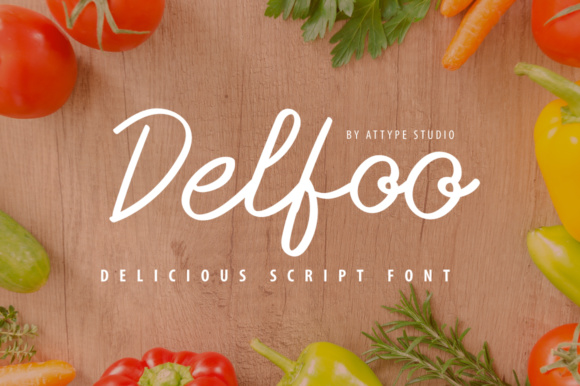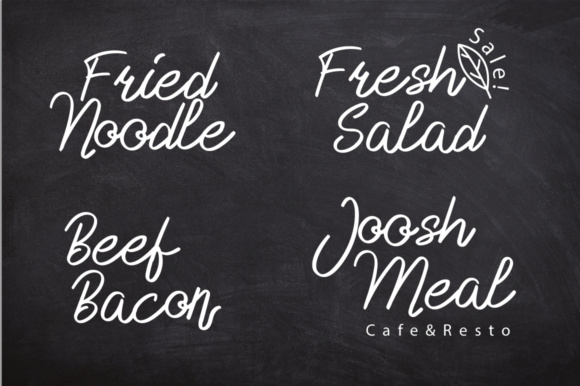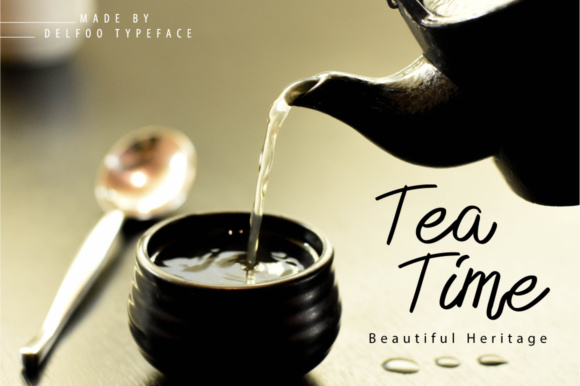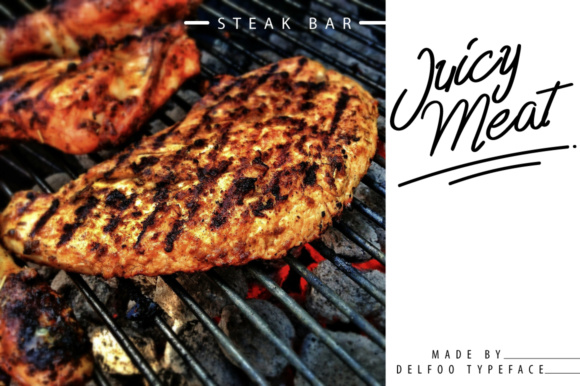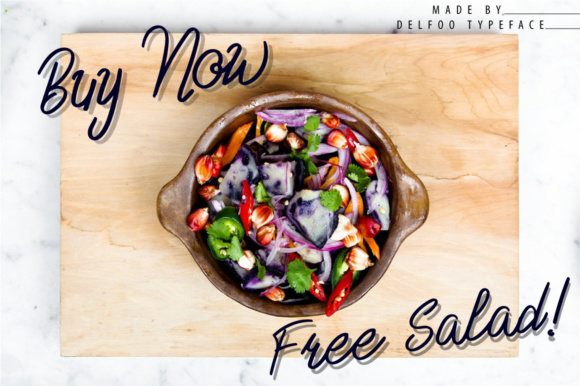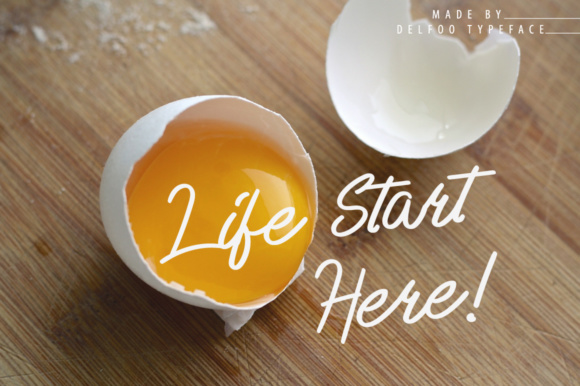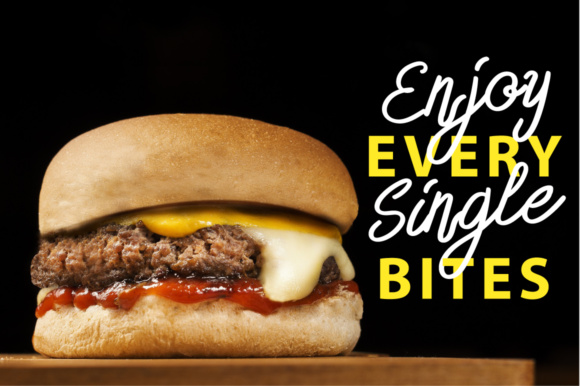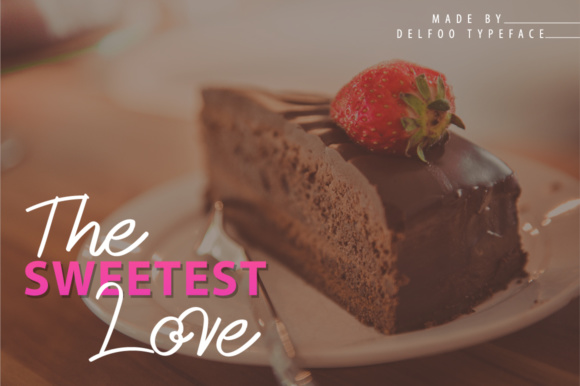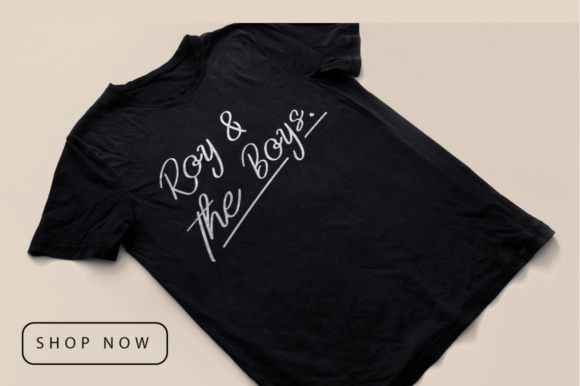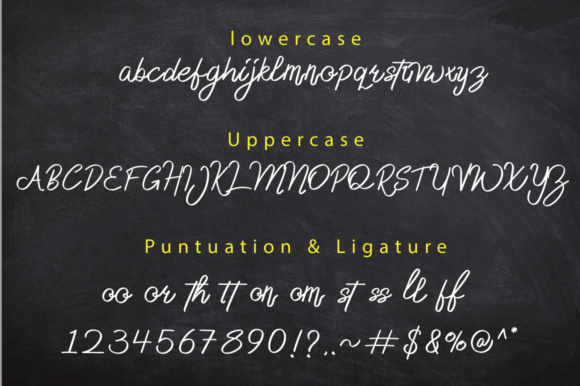
Delfoo Font
About Delfoo Font
The Delfoo is a stylish handwritten typeface. This beautiful script font offers you a personal touch for your latest art project with its fresh, elegant and delicious look.